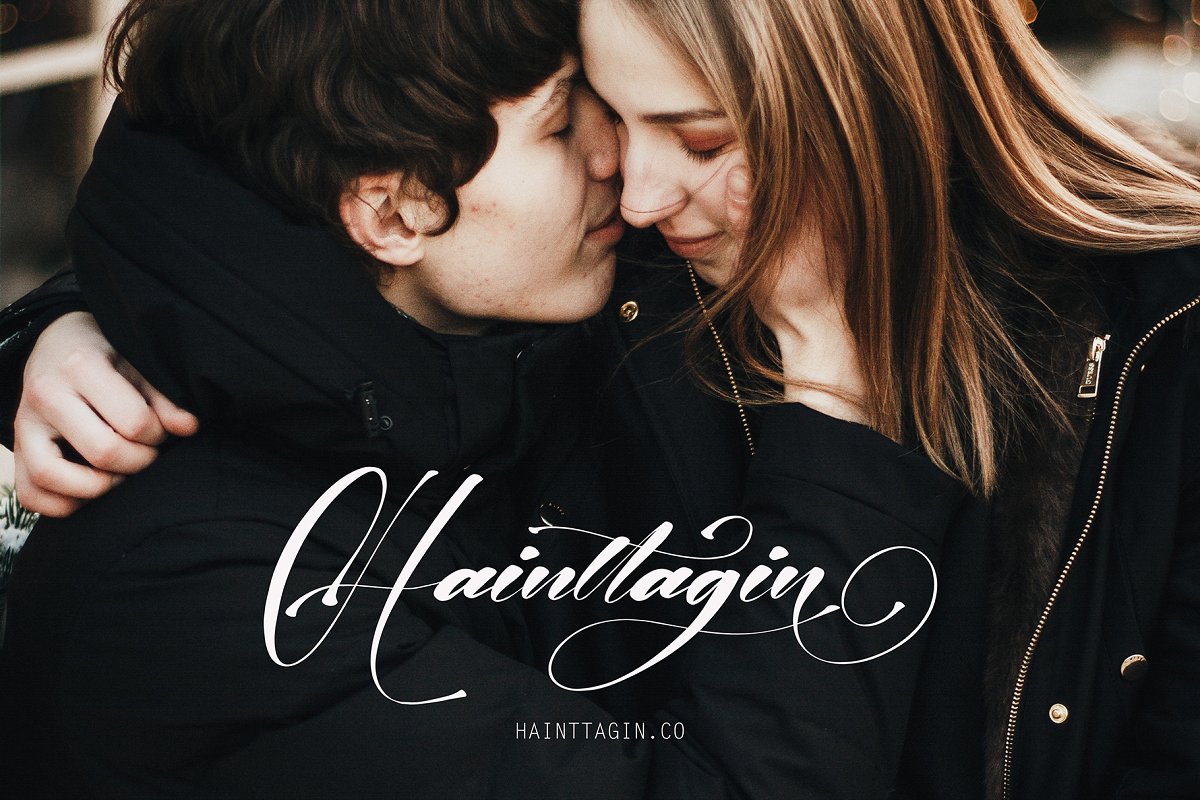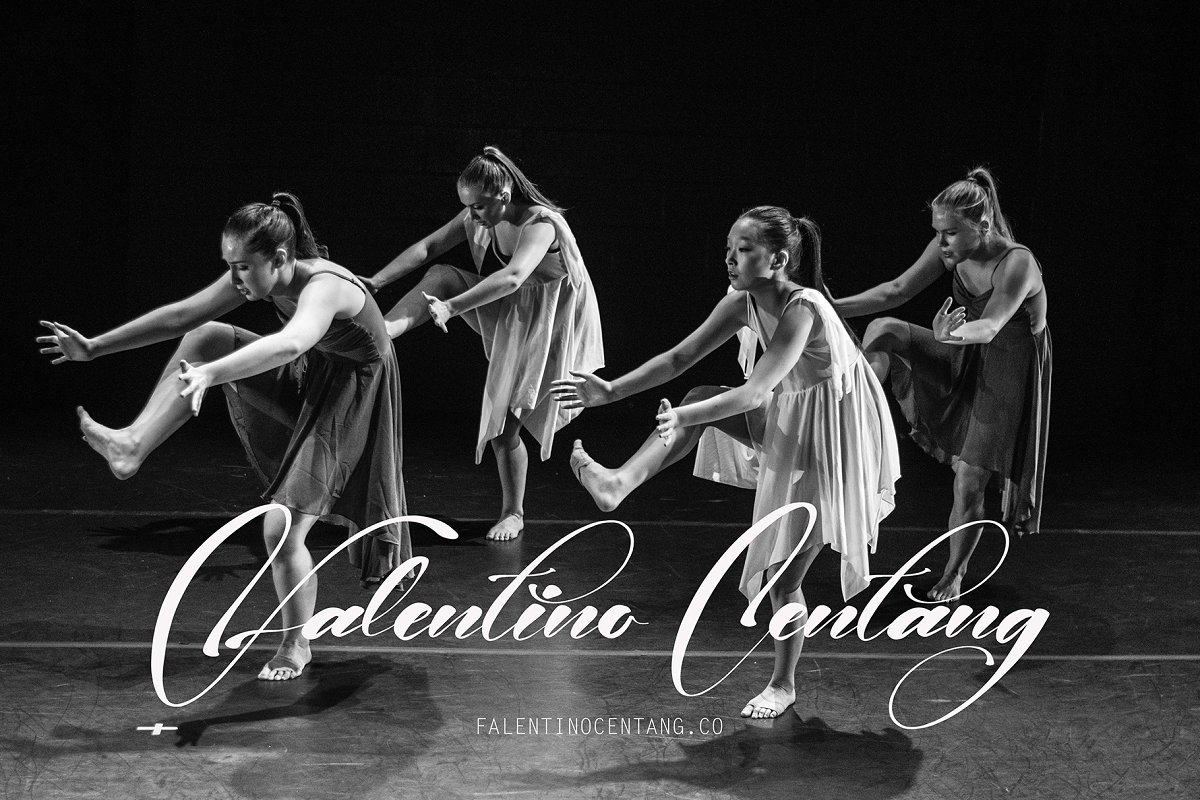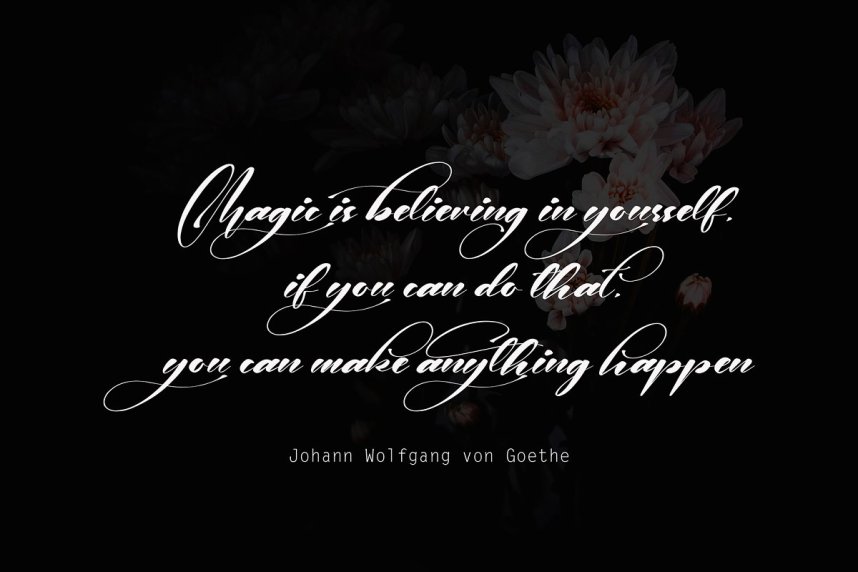
Kiramba Calligraphy Font
Introducing Kiramba Font. It is designed by Pineungtype, this is a premium font, are sold on creativemarket, but it was great, it is free today for download. Kiramba font with modern calligraphy style, this font will perfect for many different project ex: quotes, logo, blog header, poster, banding, fashion, apparel, letter, invitation, stationery, etc…